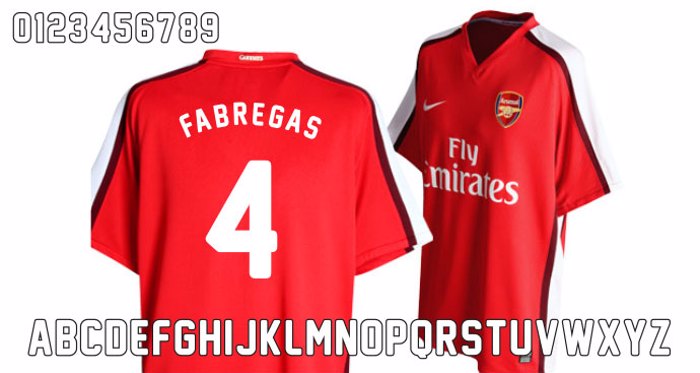
New Athletic M54 Font
Modern twist to a classic sports font. Ideal for apparel design and naming sports jerseys. The dollar ($) key holds an alternate glyph for the letter 's'. The left and right curly brackets hold alternate glyphs for numbers '2' and '5'.
Brilliant set- nicely balanced standout font.
great font... but i h8 arsenal! Man U 4eva
great font but would of been nice to have exclamation marks
Clean and Great ! Awesome
@seasley you may use it on business cards and whatever else media you require. Unfortunately the font only comes in uppercase only and a few exclamation marks.
Super Clean Font! nicely done!